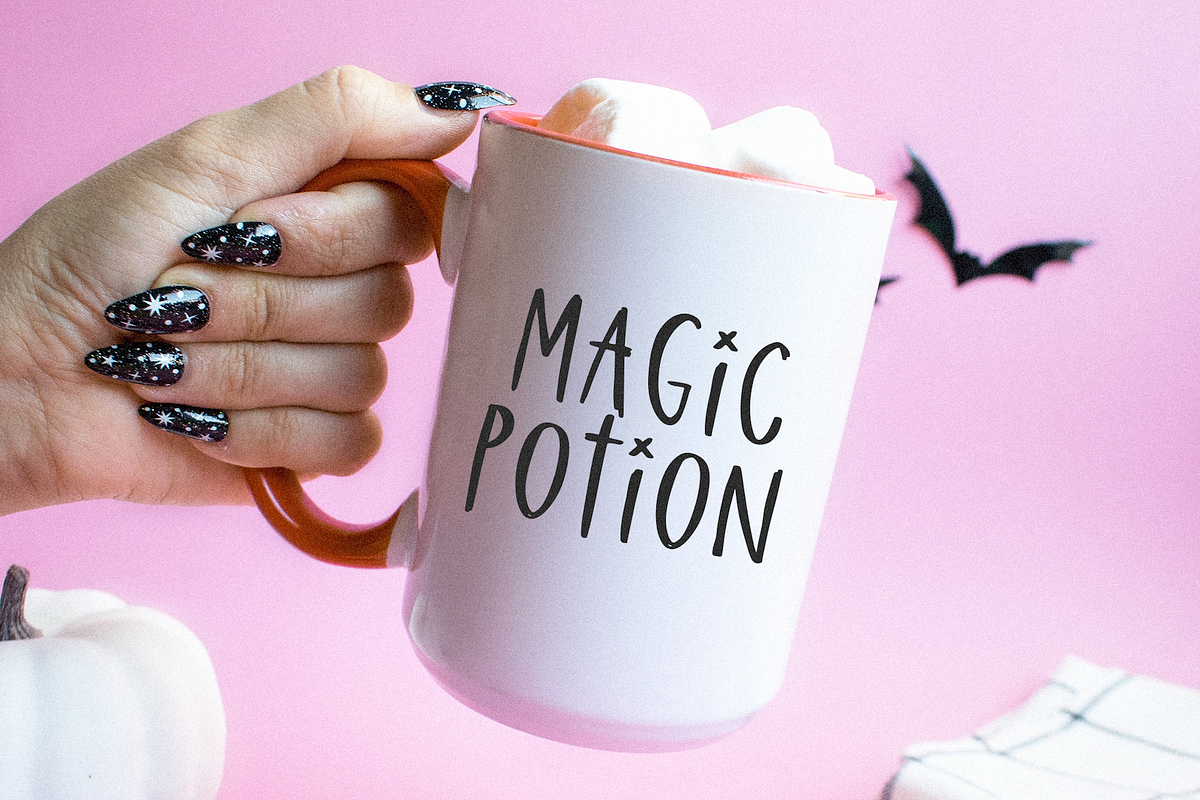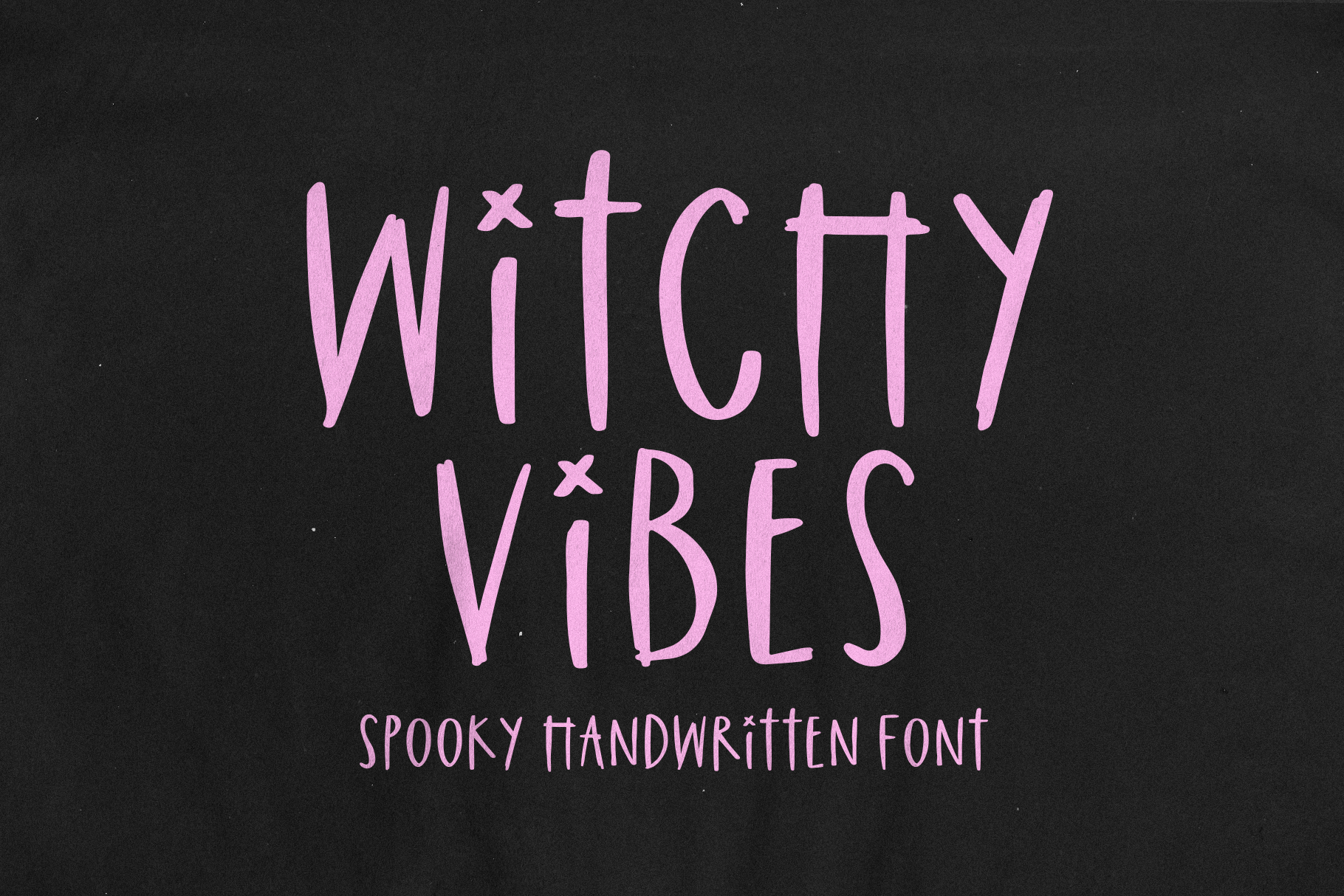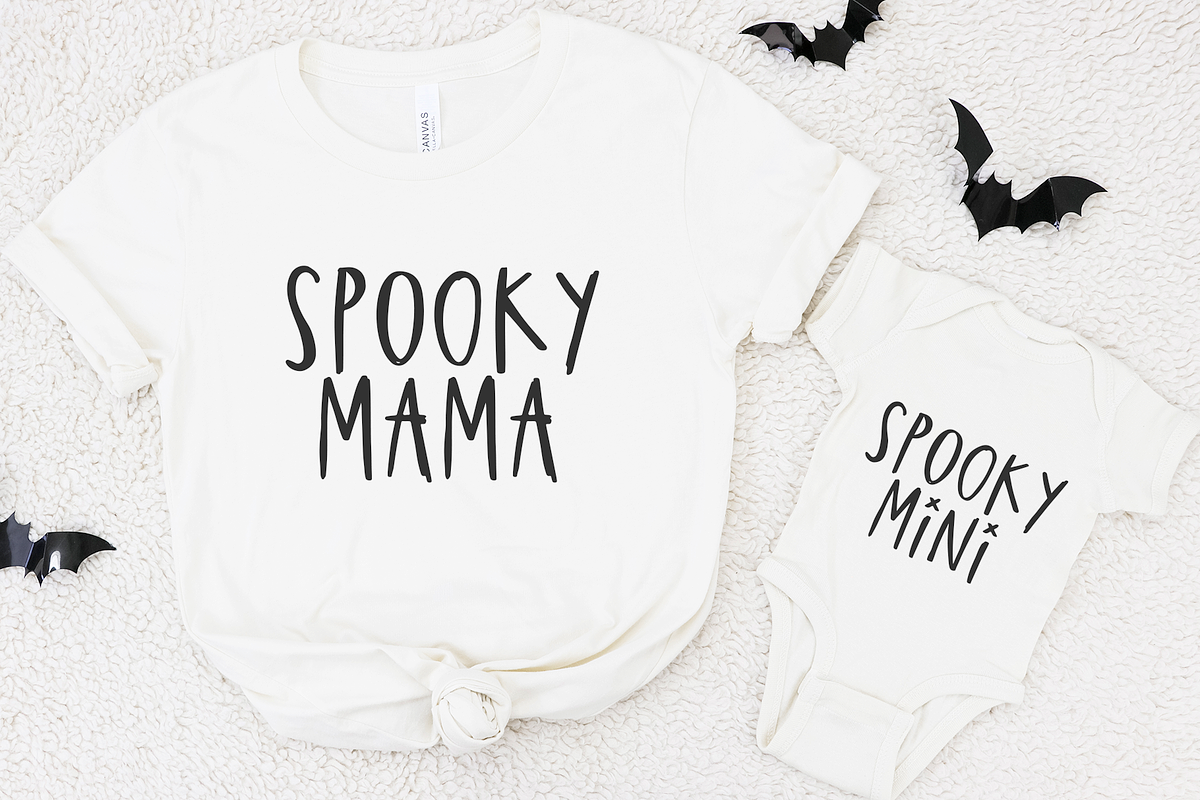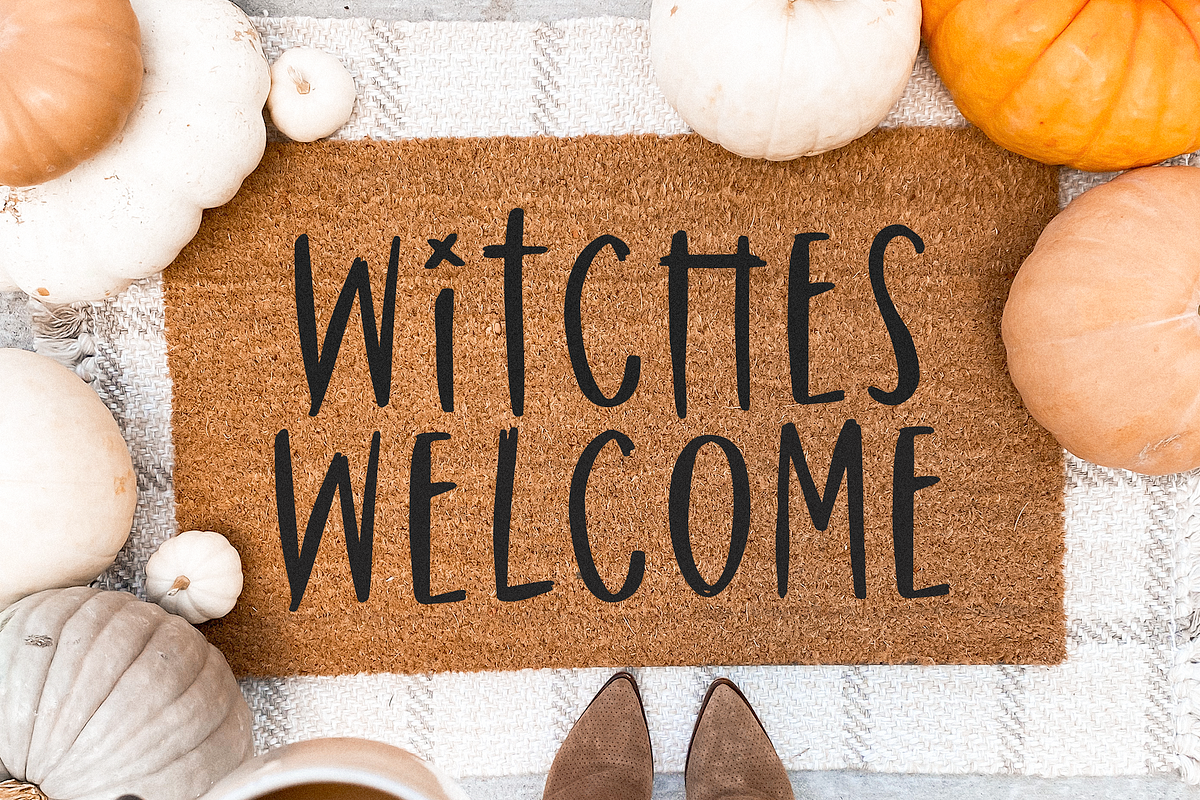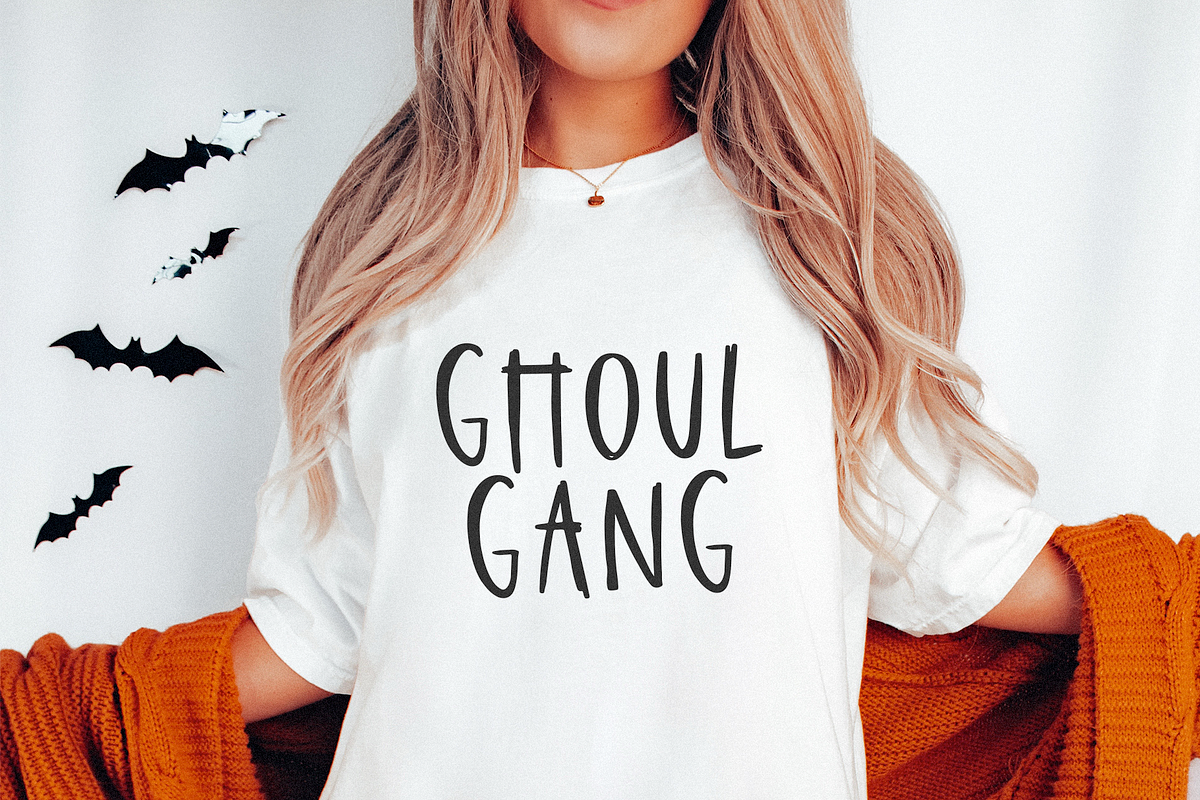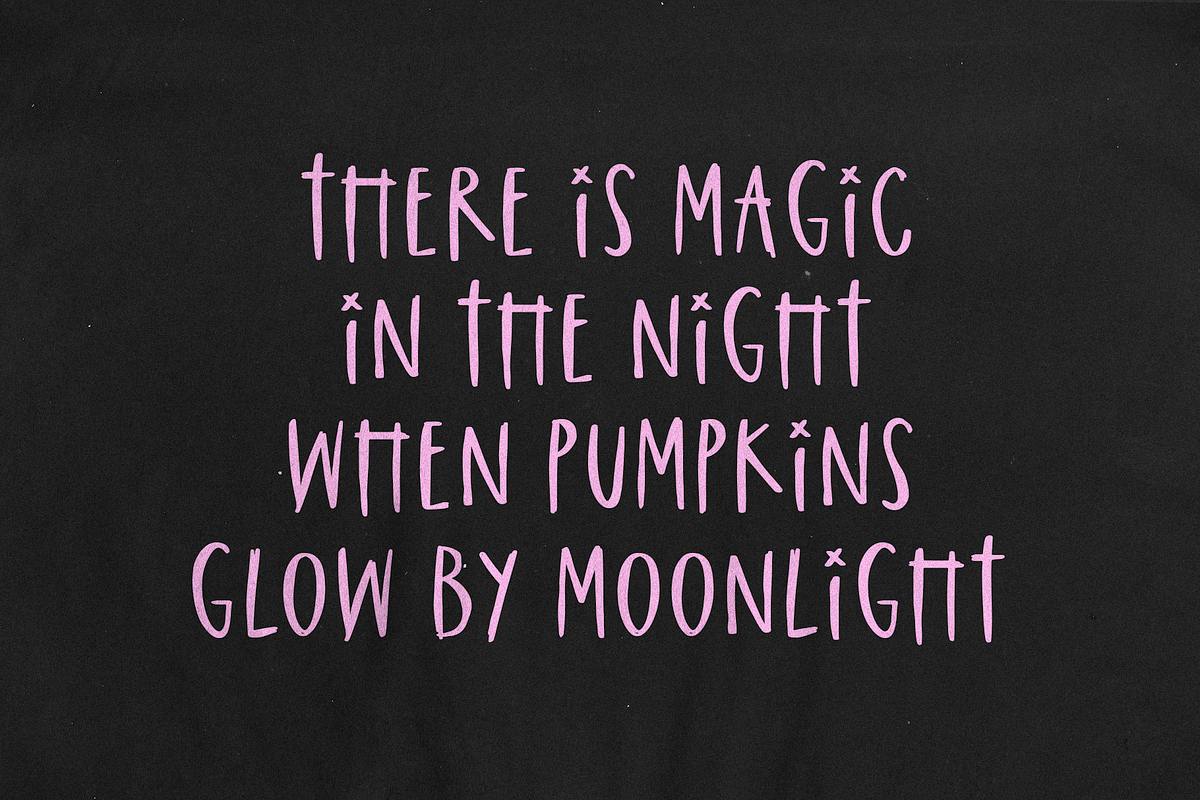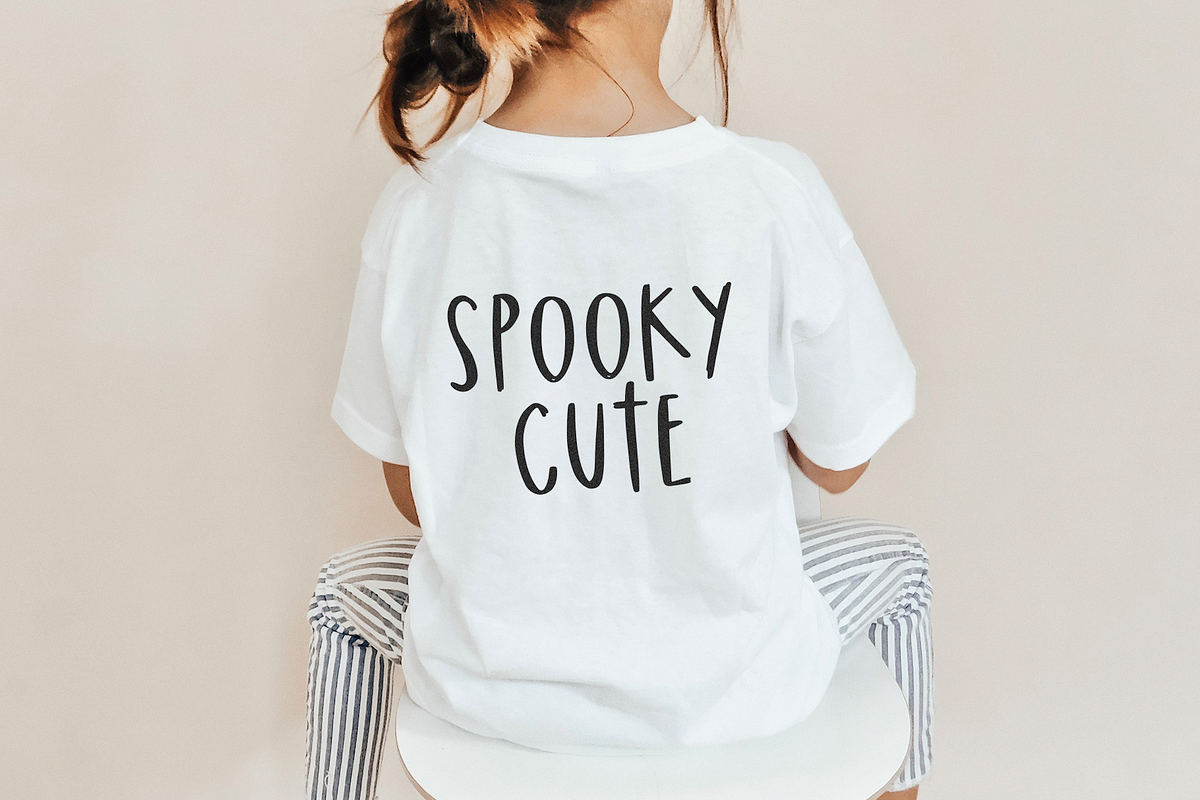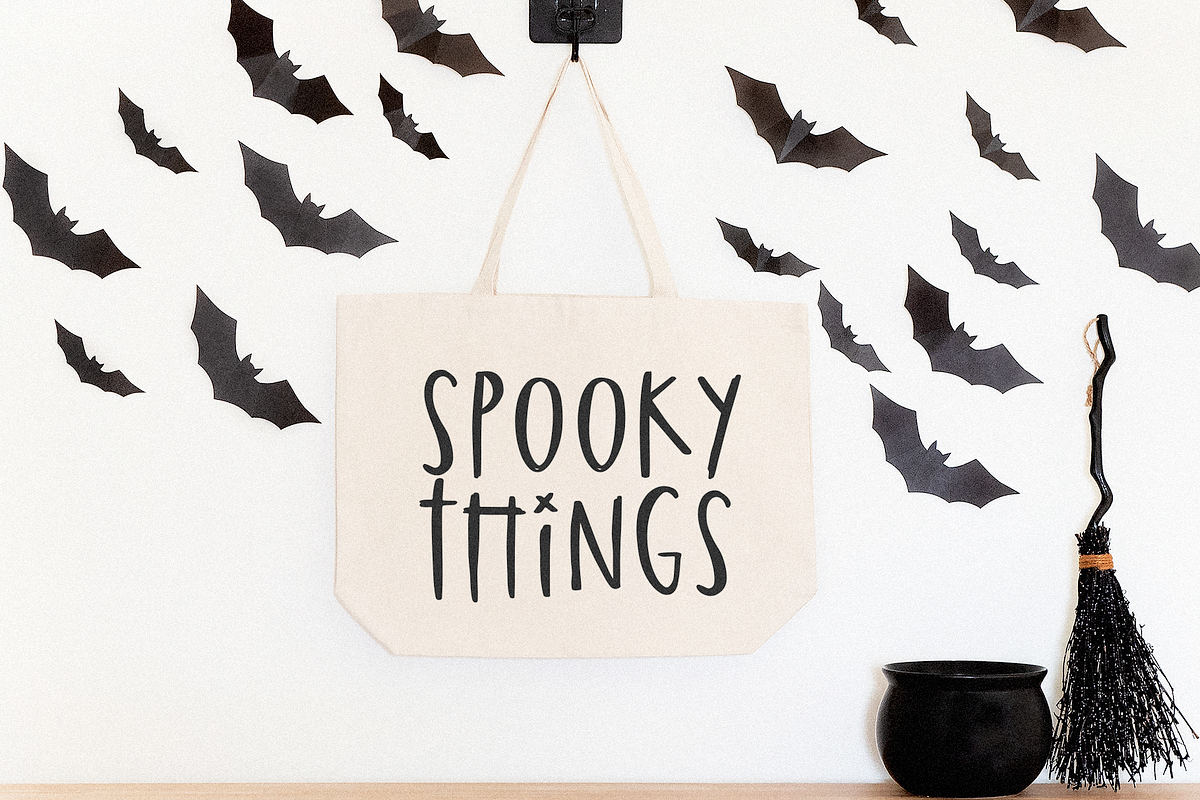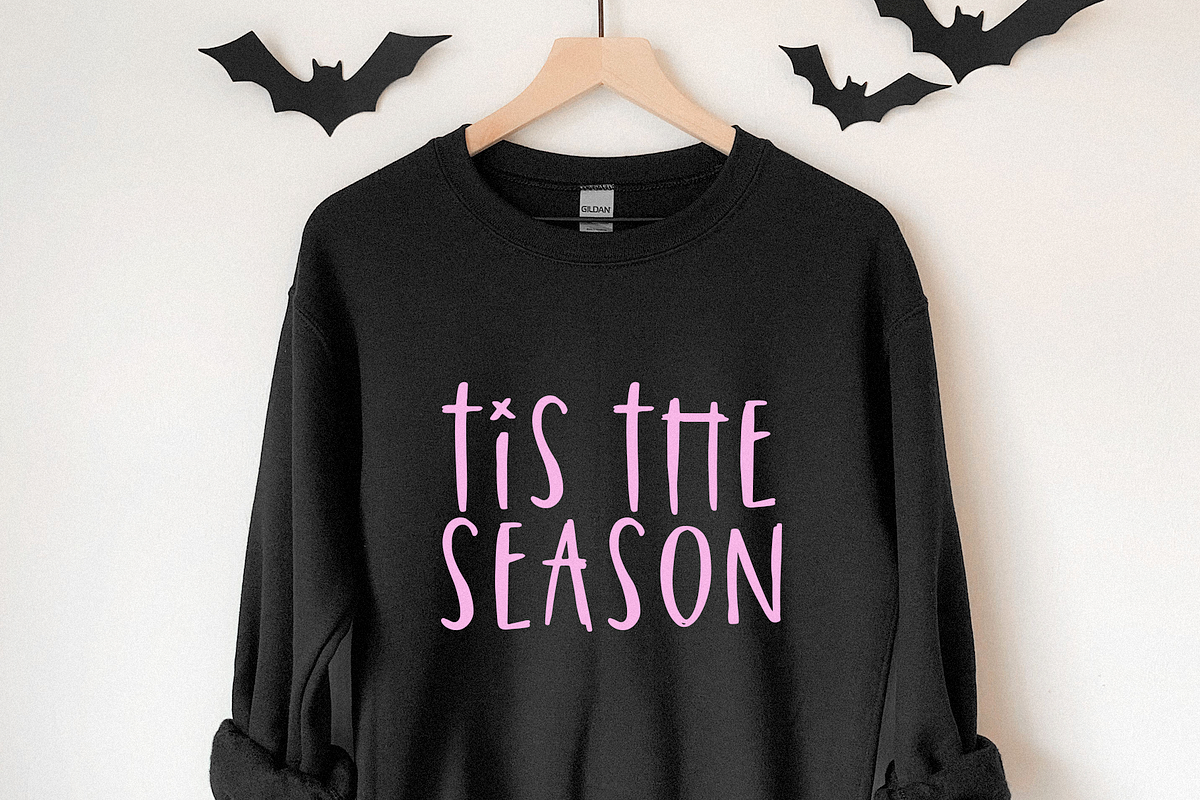
Witchy Vibes | Spooky Halloween Font
Witchy Vibes is a spooky font perfect for your halloween designs!
Use this font for shirts, logos, doormats, stickers, procreate designs, instagram quotes, spooky svg files and more!